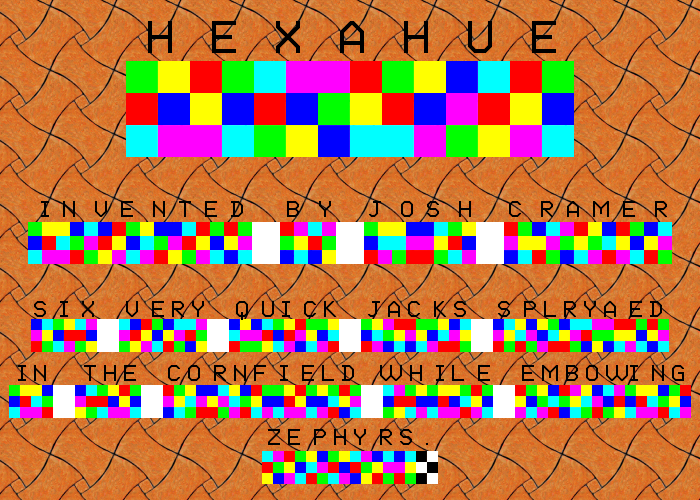
• Use an underscore for an all black space.
This alphabet was invented by Josh Cramer.
Each character is a 2x3 grid containing colors for letters, and greyscale for digits and punctuation.
How can you type these symbols: ;:?!/'